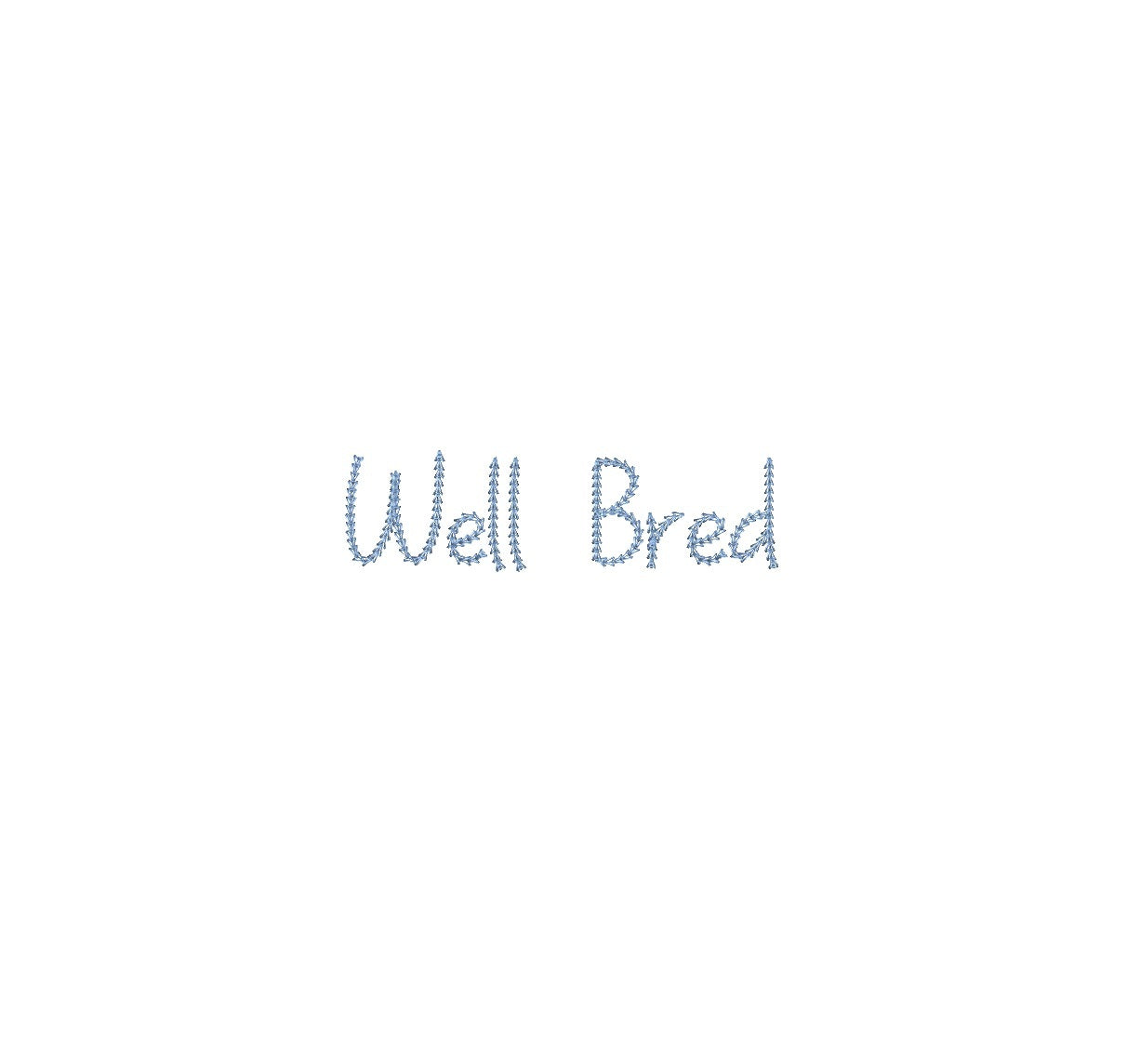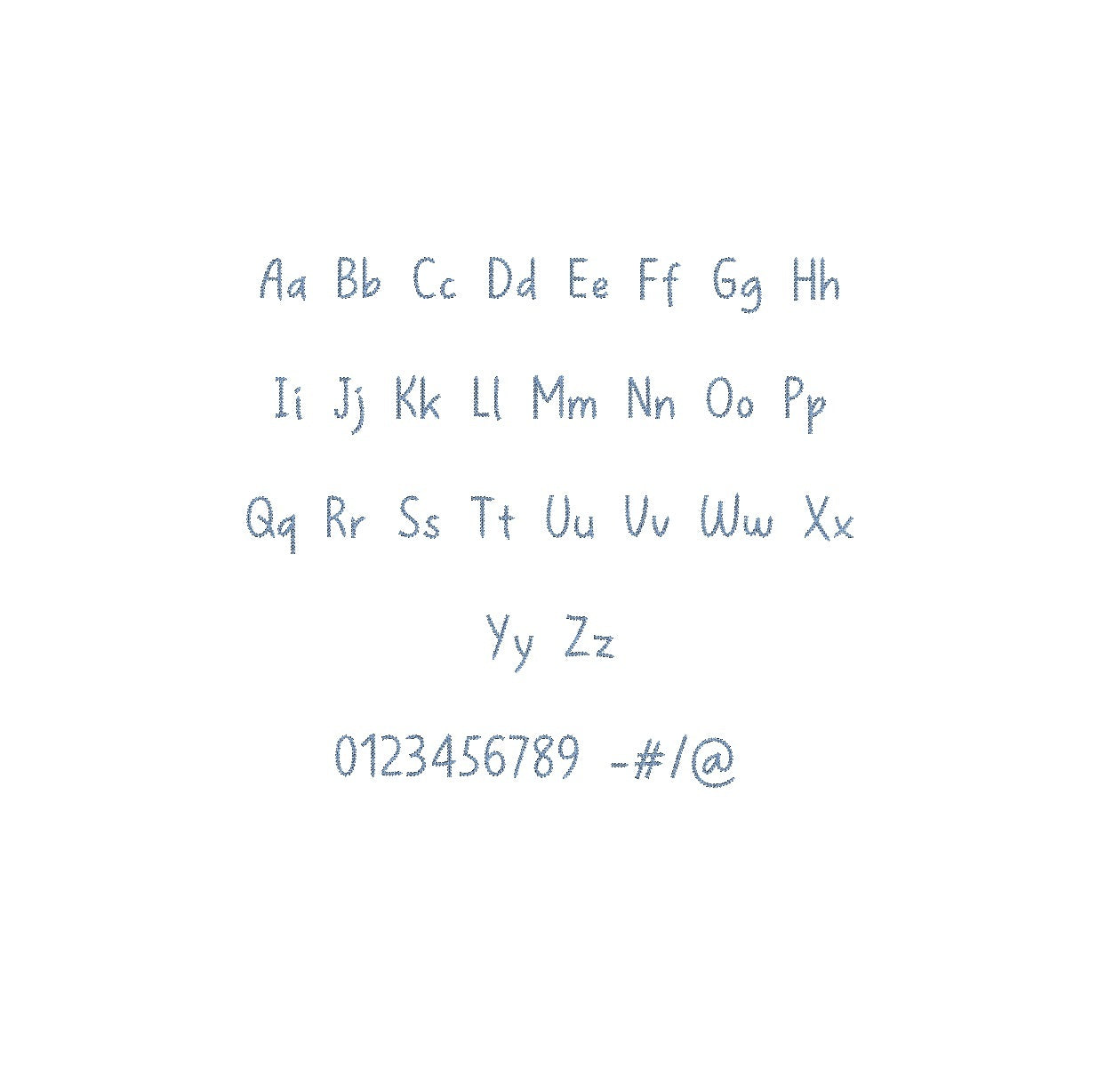
Well Bred Chain Stitch ESA font
Elevate your embroidery with the refined Well Bred Chain Stitch ESA font. Perfectly compatible with Wilcom Studio e4.5.6 and Hatch 3 versions and up, this font brings an air of sophistication to your designs. Craft charming monograms, labels, and embellishments effortlessly. Seamlessly integrate the font to unlock diverse creative possibilities. Download Well Bred Chain Stitch ESA font now to infuse your embroidery with timeless elegance. Elevate your projects with this exceptional font, transforming each piece into a masterpiece of refined artistry. Add a touch of class to your creations with this versatile addition to your toolkit.